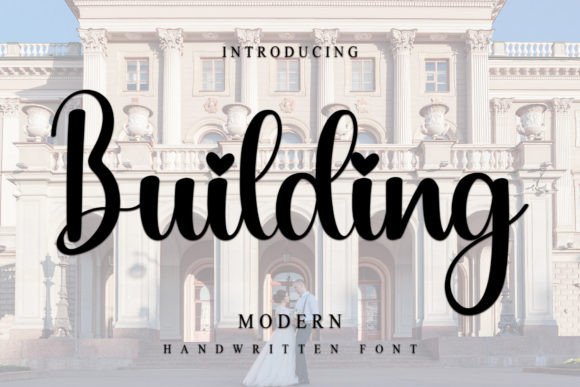
The Designer’s Delight: Building Font
I’ll never forget the moment I stumbled upon the Building font. I was working on a project for a client who wanted a elegant and timeless design, but I was struggling to find the right font to bring their vision to life. That’s when I discovered Building – a neat and beautiful handwritten font that instantly captured my heart. In this article, I’ll share my experience with Building, its features, and how to make the most of it in your designs.
A Personal Review: What I Love About Building Font
Building font is a true gem, and here’s what I love about it:
• ✨ Elegant touch: Building has a distinct, cursive feel that’s perfect for creating sophisticated designs.
• ✅ Timeless style: The font’s classic look ensures it won’t go out of style anytime soon.
• 💫 Highly legible: Even at smaller sizes, Building remains clear and easy to read.
• 🎨 Versatile: It works beautifully for a wide range of projects, from branding and logos to invitations and social media graphics.
While Building font is amazing, there are a few things to keep in mind:
• 🤔 Limited character set: Building might not have all the characters or language support you need, so be sure to check before using it for a specific project.
• ⚠️ Overuse: Like any beautiful font, Building can become overwhelming if overused. Balance it with simpler fonts to create visual interest.
3. Experiment with OpenType features like ligatures and stylistic alternates to add personality to your text.
The Story Behind Building Font
Building font was designed with the intention of creating a beautiful, elegant script that would evoke a sense of timelessness. The designer aimed to craft a font that would be both highly legible and visually appealing, making it perfect for a wide range of creative projects.
What type of projects is Building font best suited for? Building font is versatile and can be used for various projects, including branding, logos, invitations, social media graphics, and more.
Does Building font support OpenType features? Yes, Building font supports OpenType features, including ligatures and stylistic alternates.